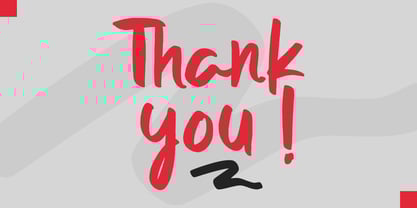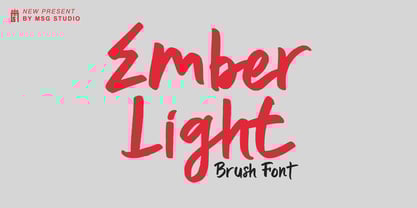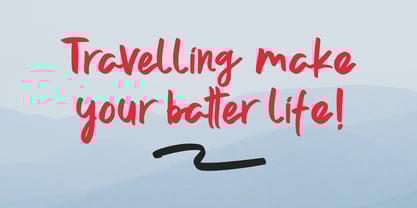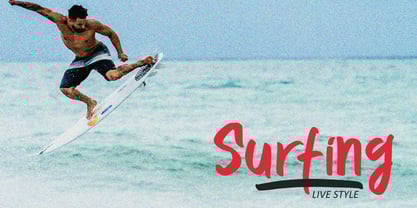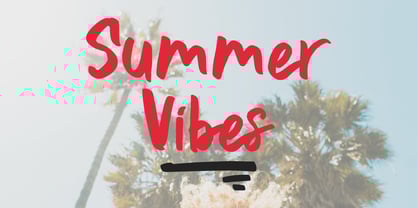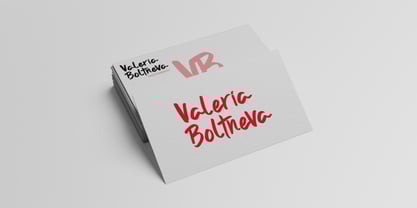
Ember Light
by Masinong Studio
The Ember Light Font Family was designed by Fajriadi and published by Masinong Studio. Ember Light contains 1 styles.
Ember Light is a soft and expressive brush font that captures the gentle glow of fading embers. With its smooth, flowing strokes and natural hand-brushed texture, this font feels warm, elegant, and effortlessly organic. Ember Light is designed to balance delicacy and character, making it perfect for branding, quotes, invitations, social media graphics, and creative projects that need a subtle yet artistic touch. Its light brush style delivers a modern handwritten feel while maintaining clarity and readability.